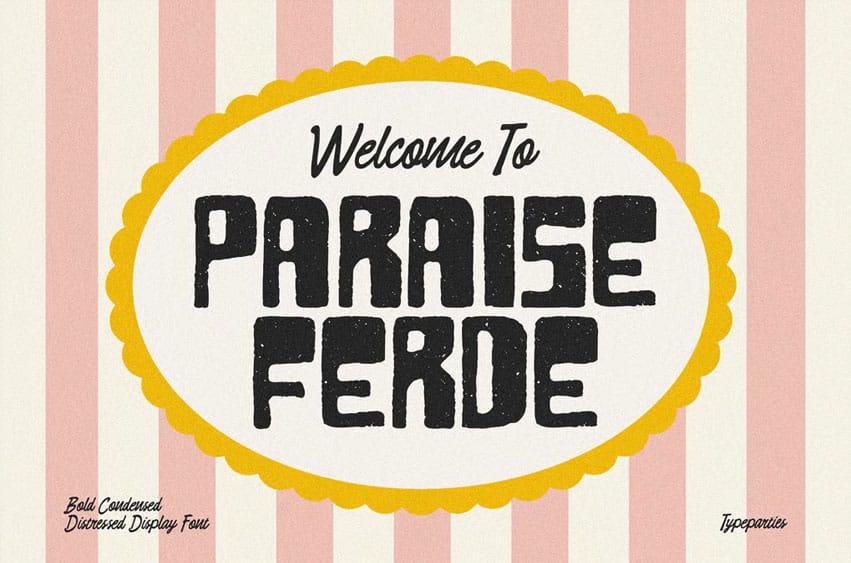
Paraise Font is a handmade bold condensed display font designed with a distressed, textured look that adds character and authenticity to any project.
Its blocky letterforms and rugged surface details create a strong vintage aesthetic, perfect for designs that need to feel raw, organic, and impactful.